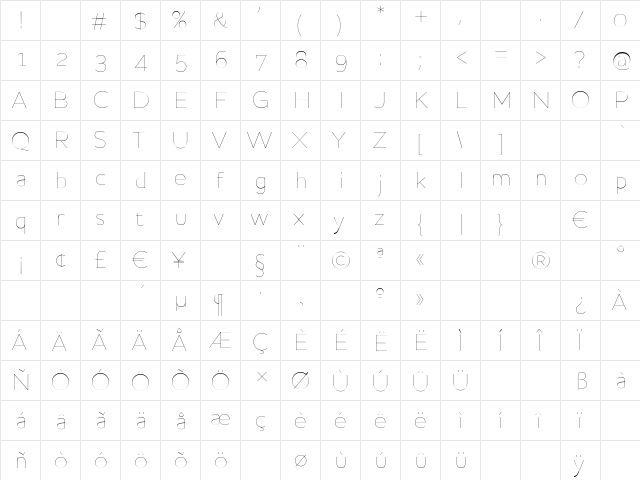
HouschkaAltThin Regular
HouschkaAltThin takes a measured approach to typography — its balanced proportions and neutral character make it a reliable workhorse for both digital and print work. The delicate stroke weight brings airiness and refinement to layouts.